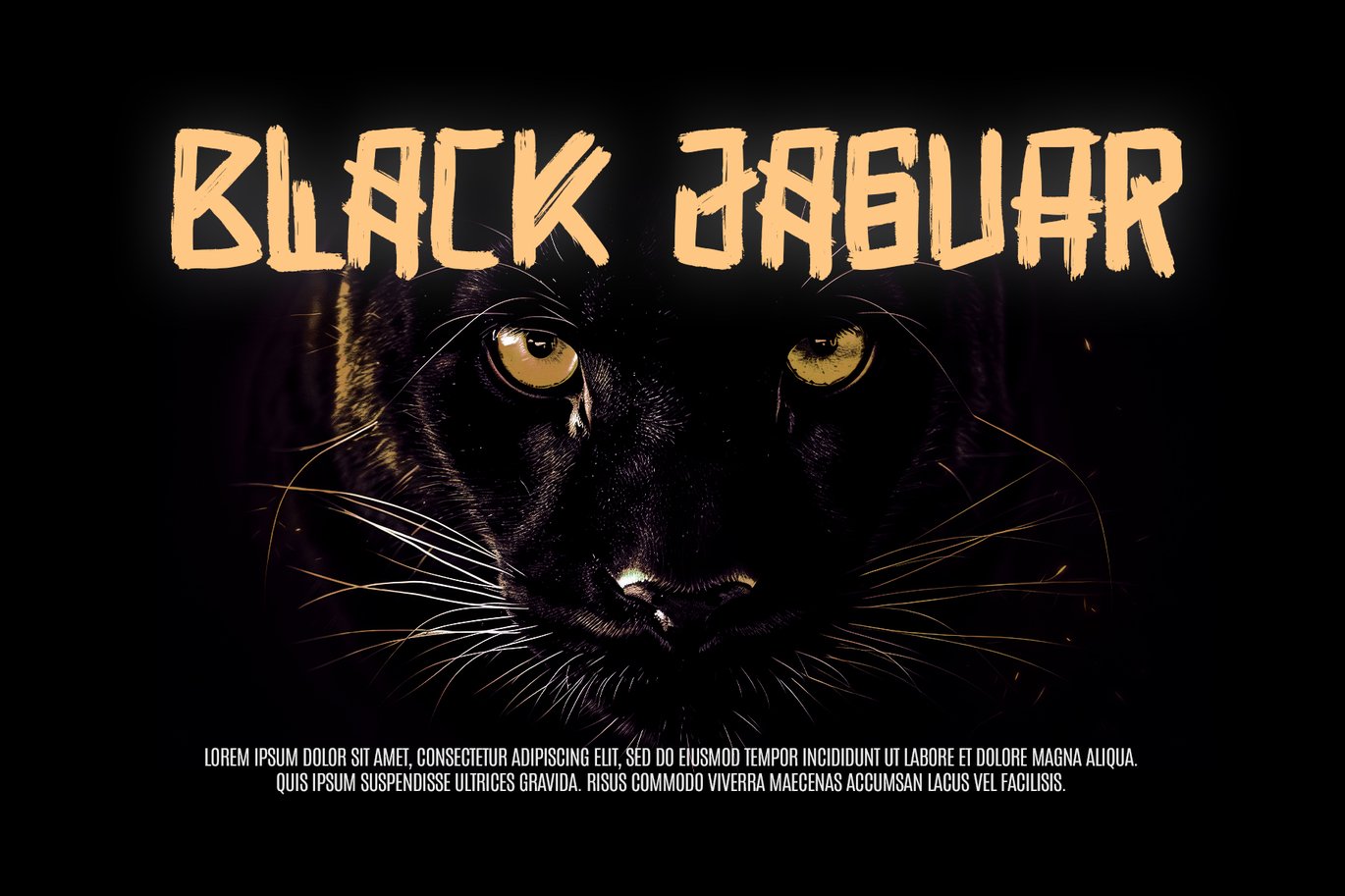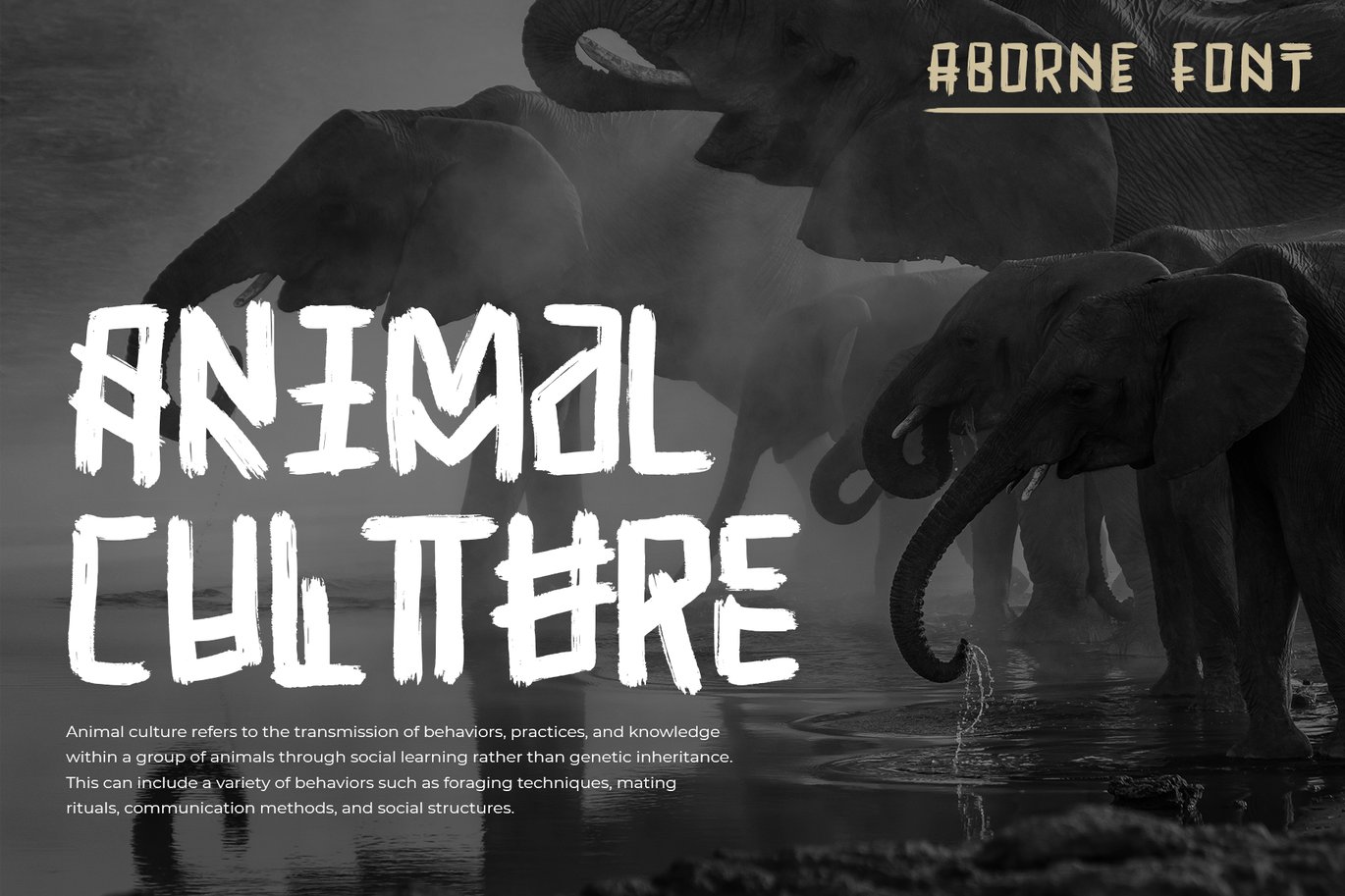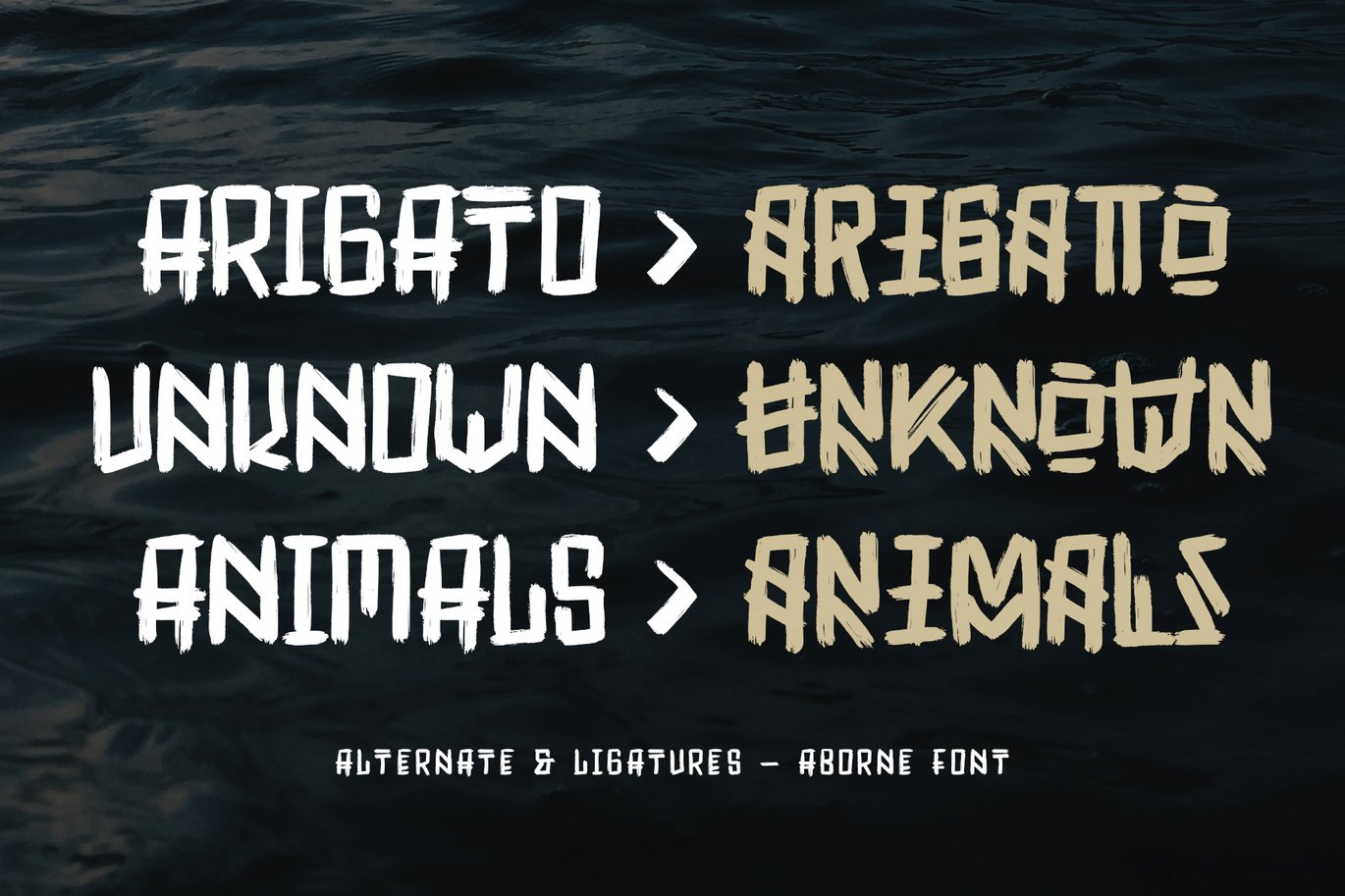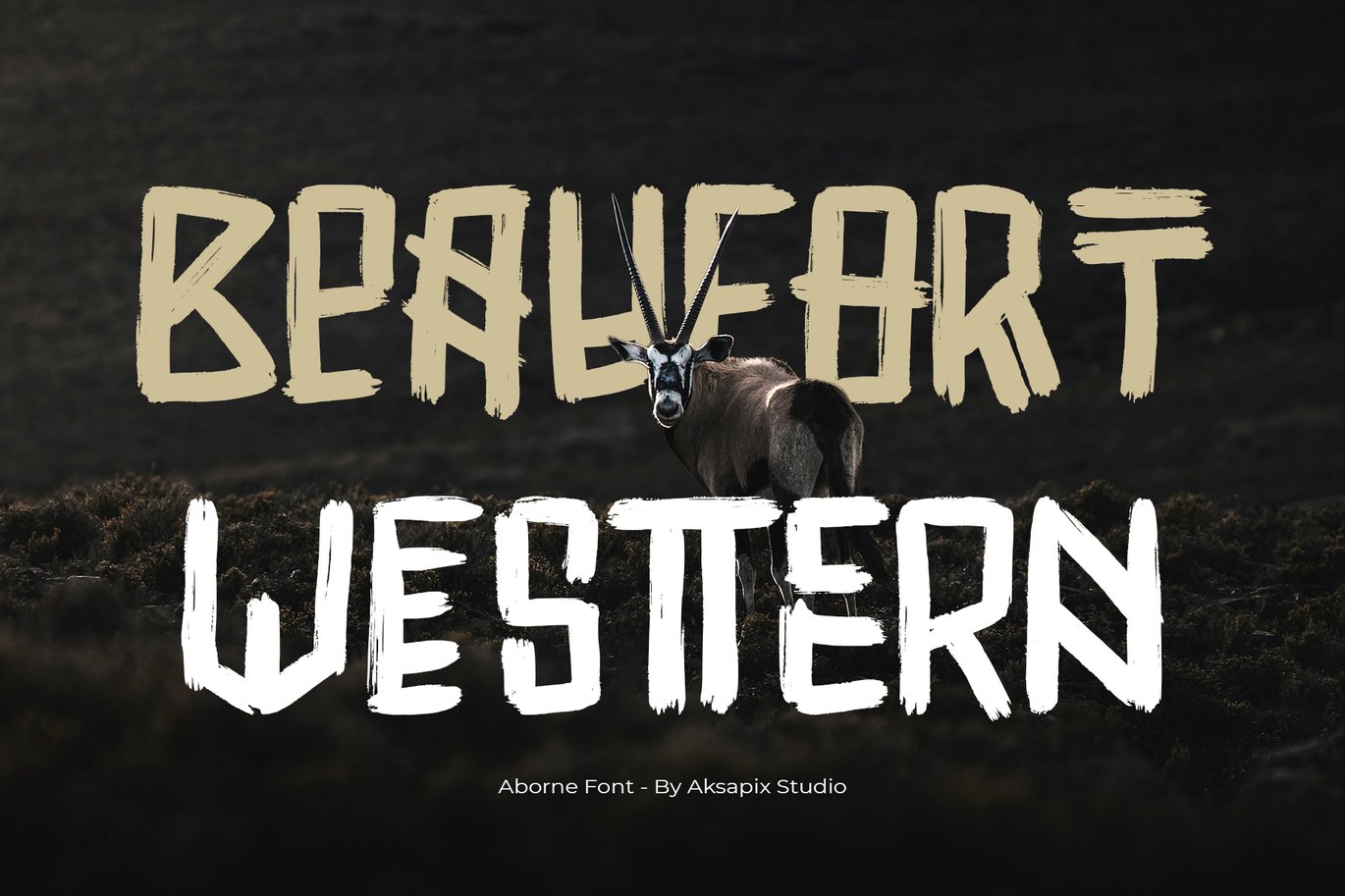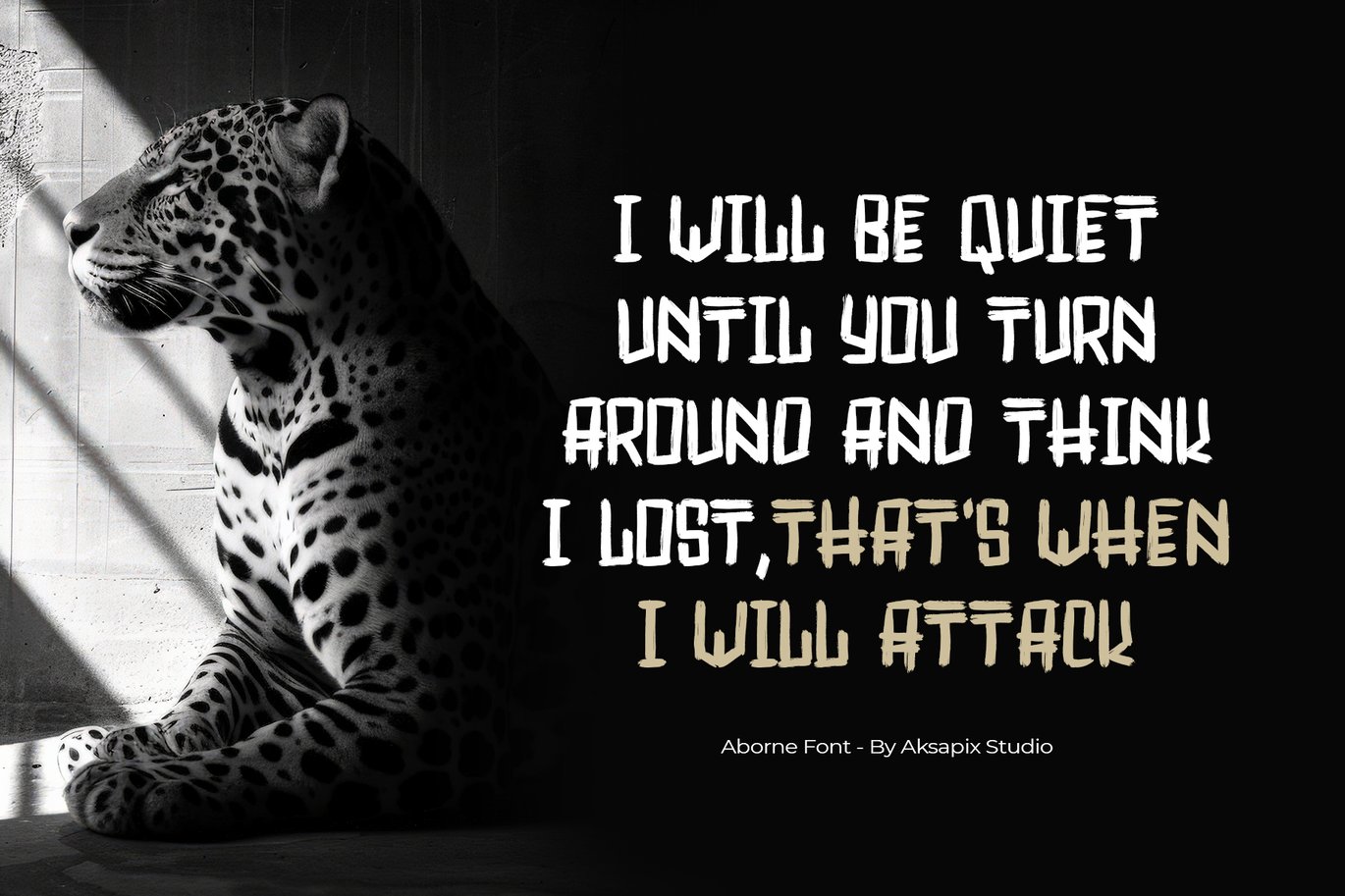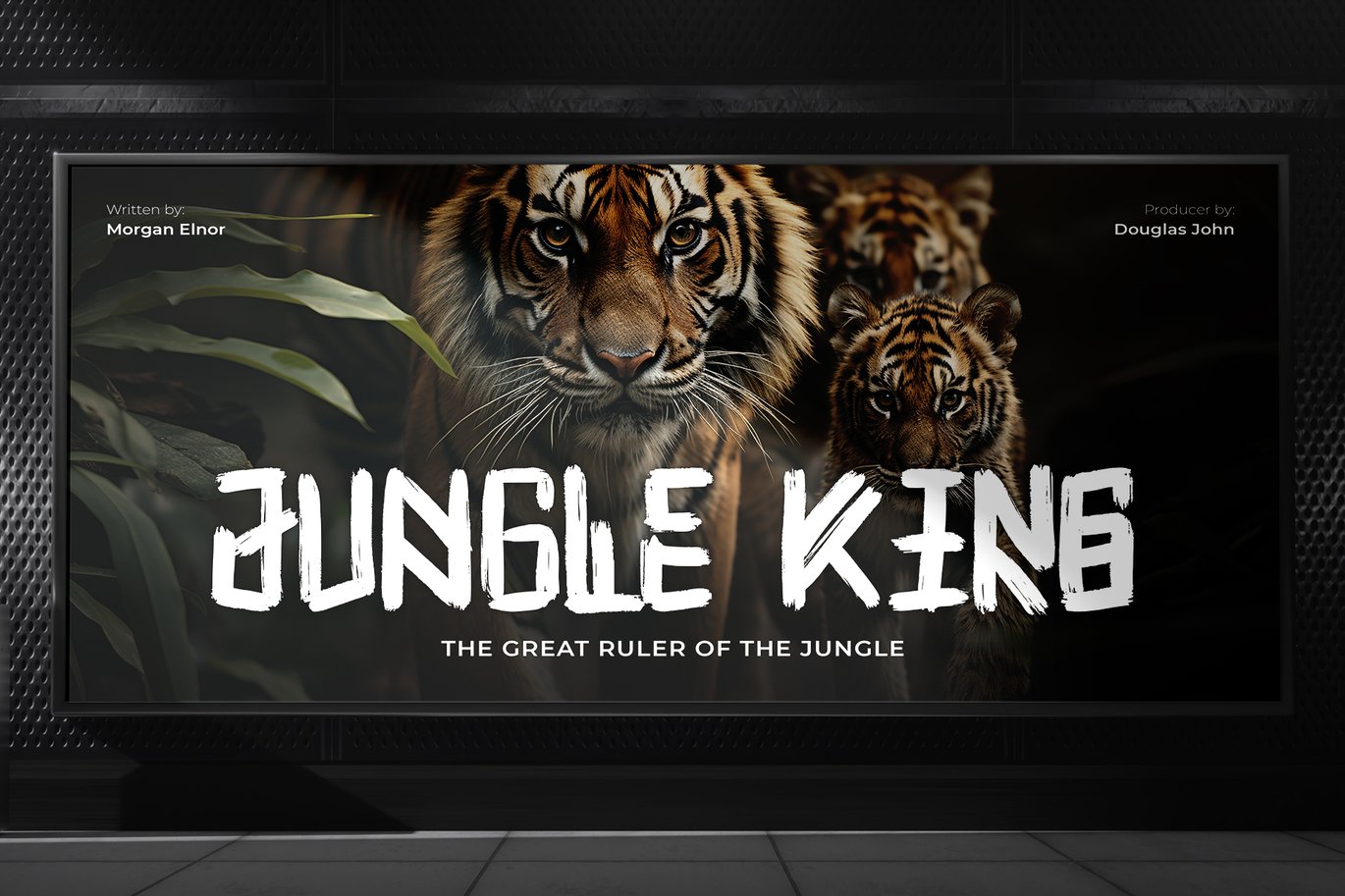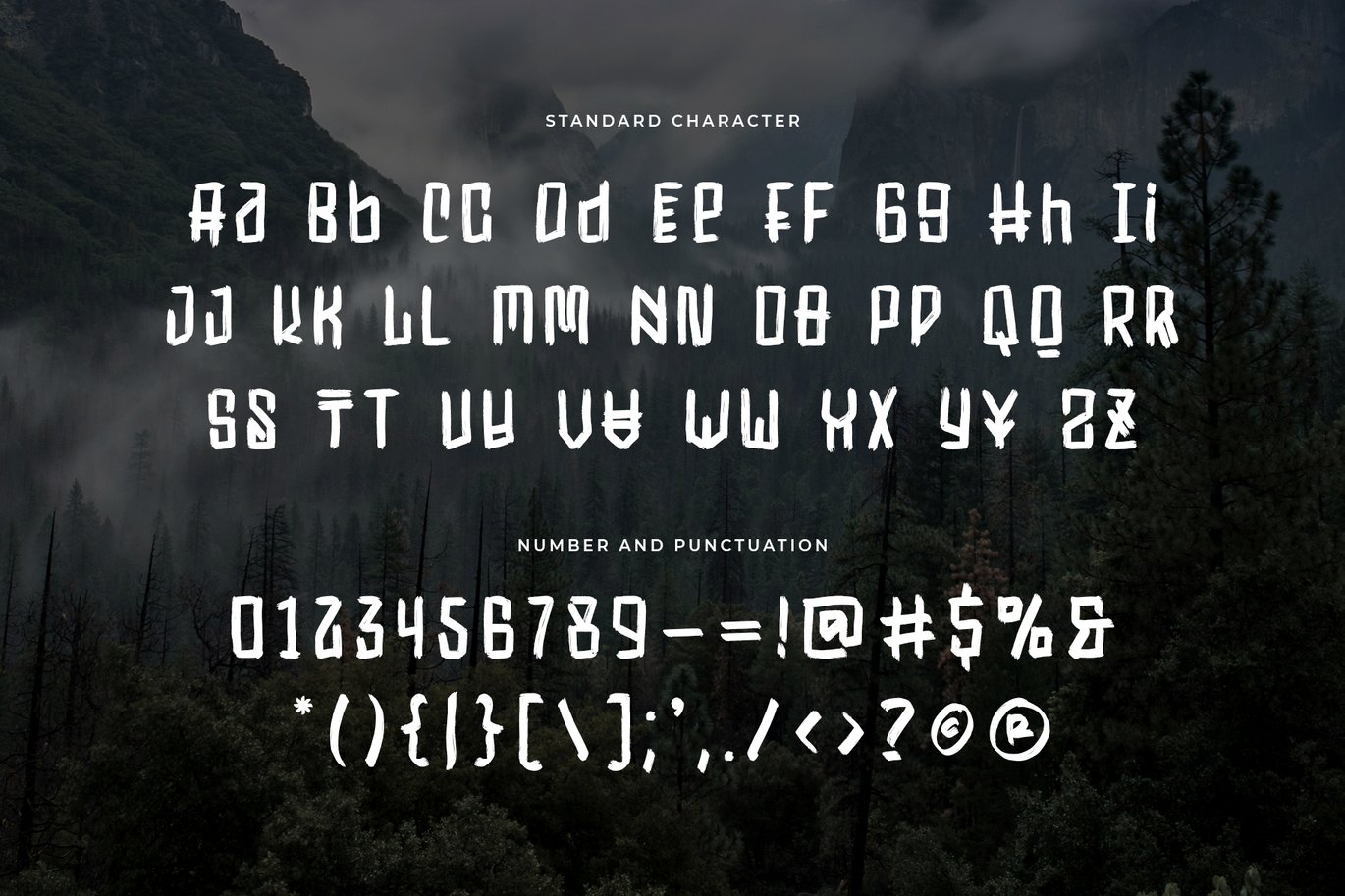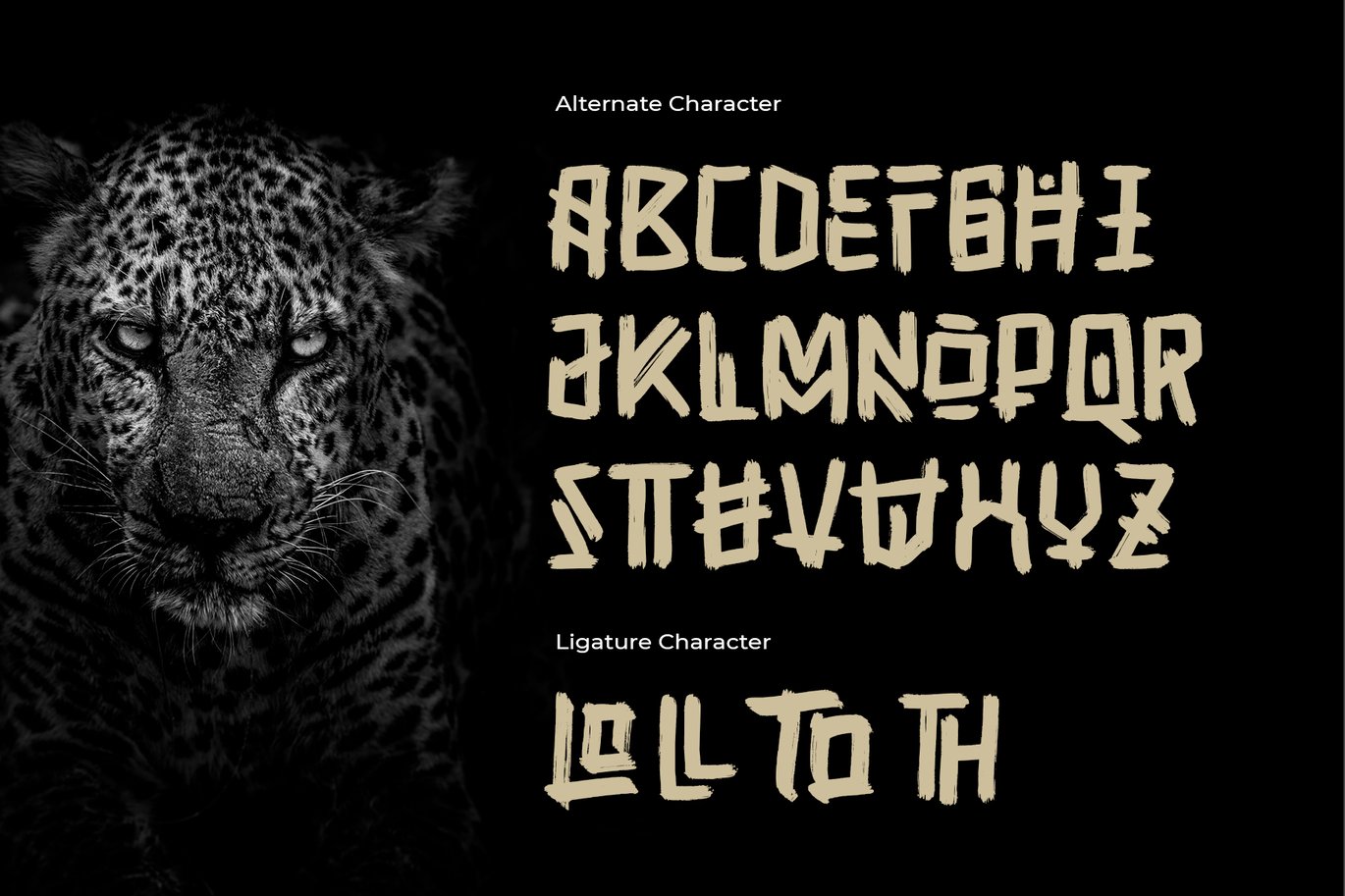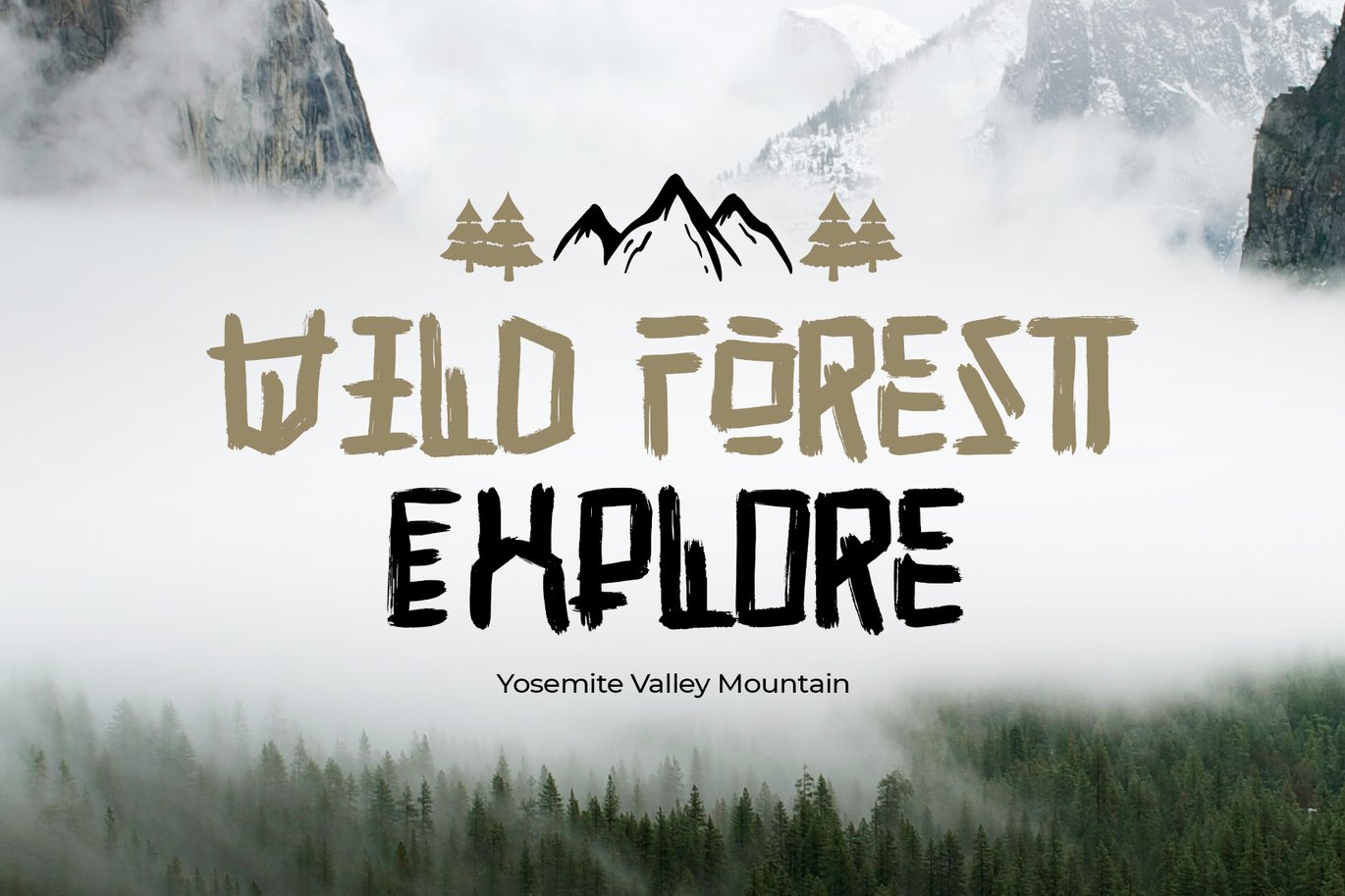
Aborne – Brush Ethnic Tribal Fonts
Introducing Aborne – Brush Ethnic Tribal Fonts, a dynamic and culturally rich typeface that captures the essence of tribal artistry with a modern twist. This font features a complete set of uppercase and lowercase letters, punctuation, stylistic alternates, and multilingual support. Aborne is perfect for adding a bold and ethnic flair to your design projects, making it ideal for branding, posters, and more.
- Uppercase & Lowercase: Comprehensive character set for diverse typography.
- Punctuation: Full set for complete design versatility.
- Stylistic Alternates: Creative options for personalized design.
- Multilingual Support: Ensures your designs resonate across languages and regions.
Perfect For:
- Ethnic Branding
- Tribal-Themed Posters
- Cultural Event Promotions
- Unique Packaging Designs
- Artisanal Products
Transform your designs with the bold, cultural impact of Aborne – Brush Ethnic Tribal Fonts. Ideal for ethnic branding, tribal-themed posters, and unique packaging, this font brings a touch of tradition and creativity to your projects.